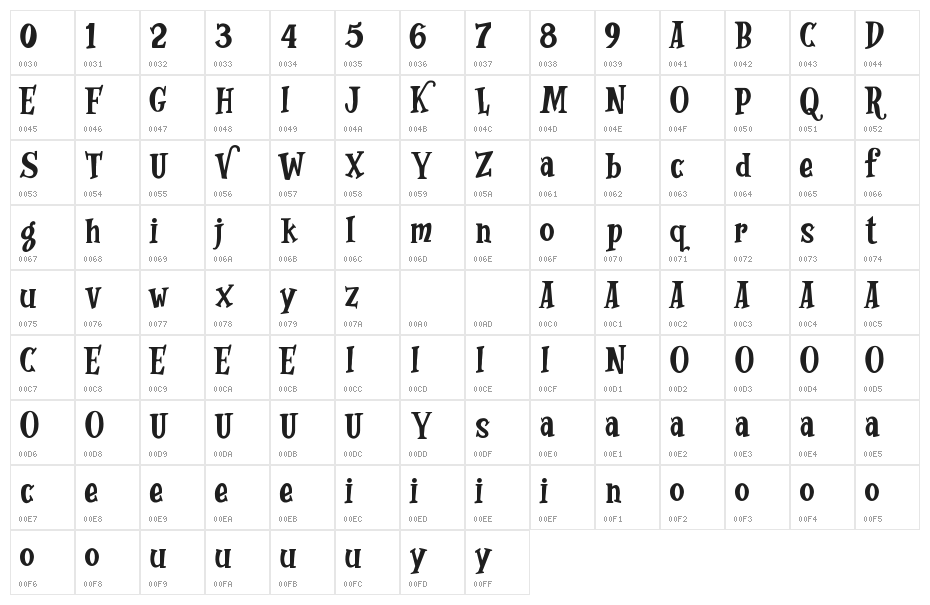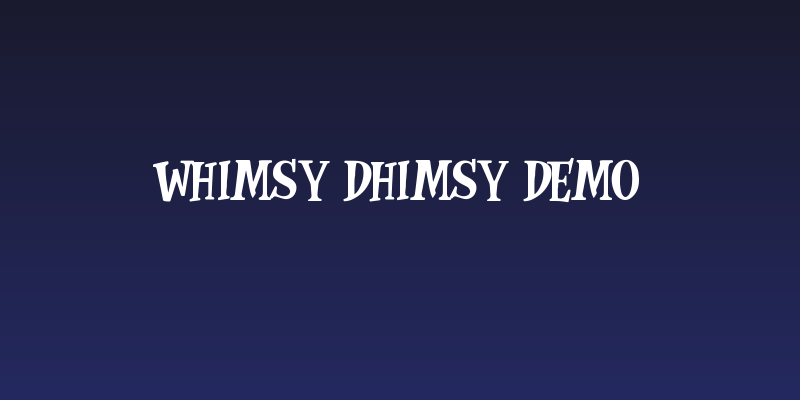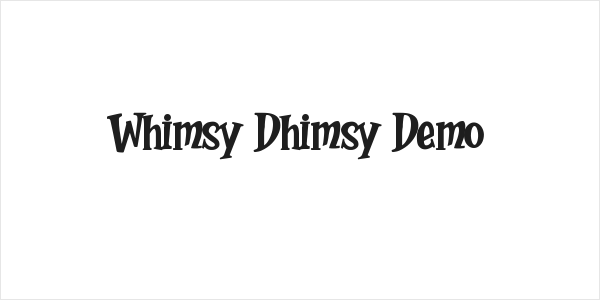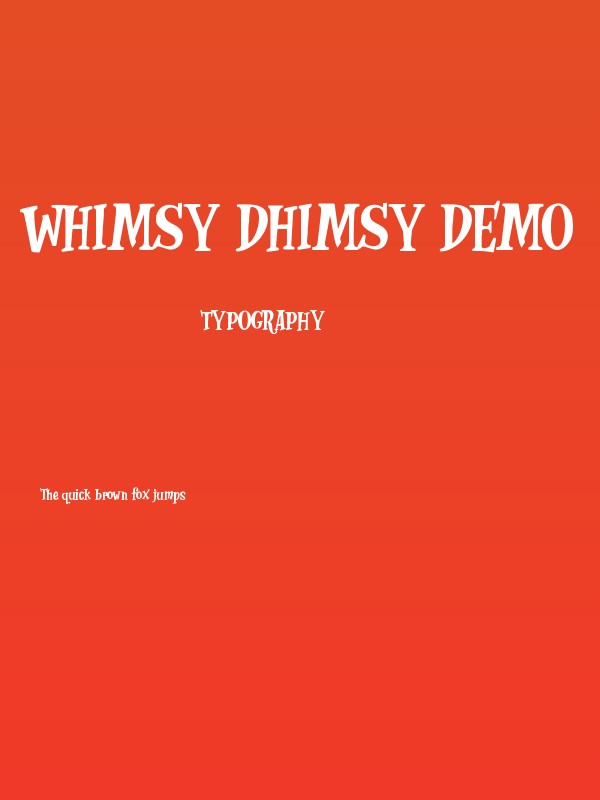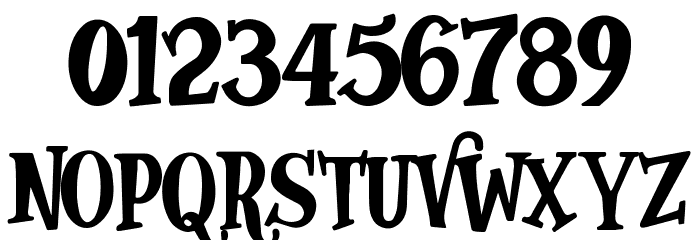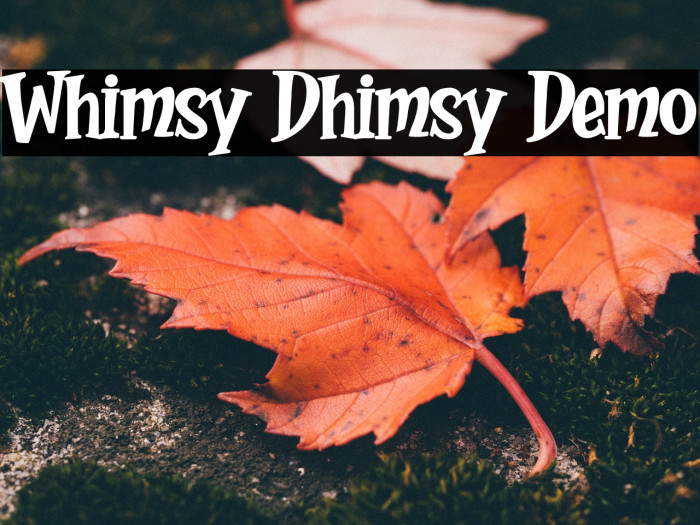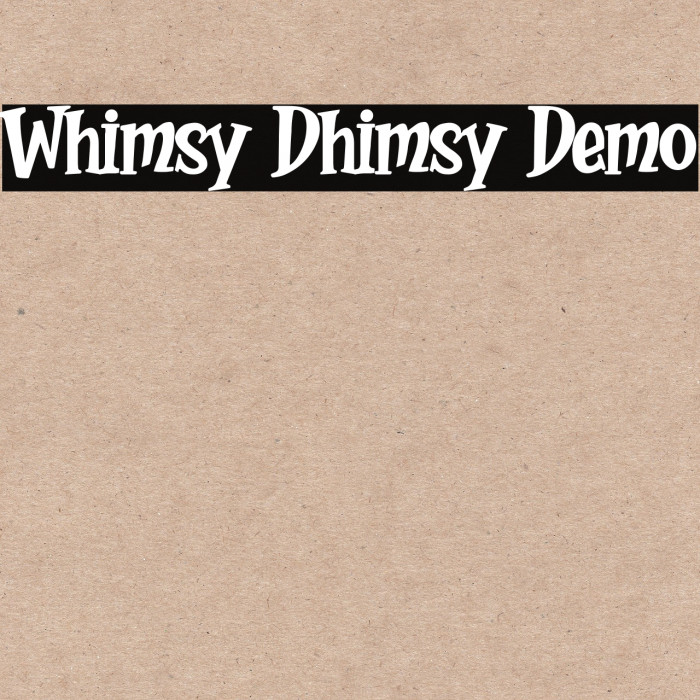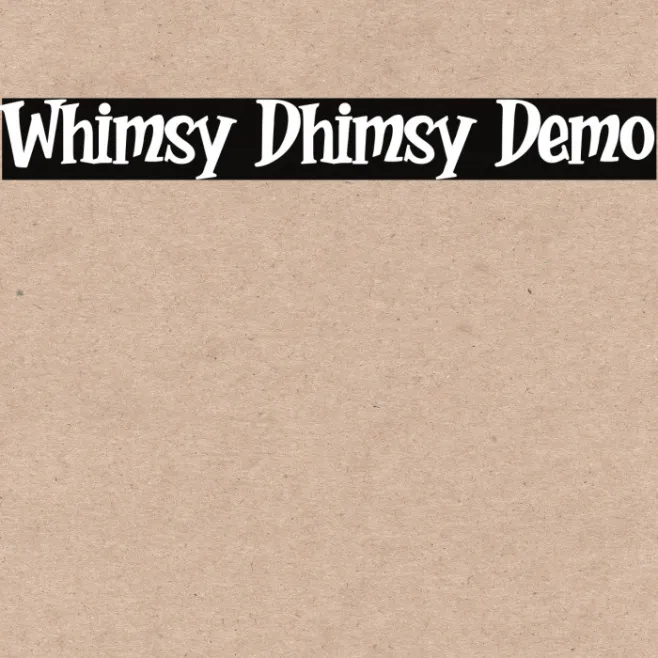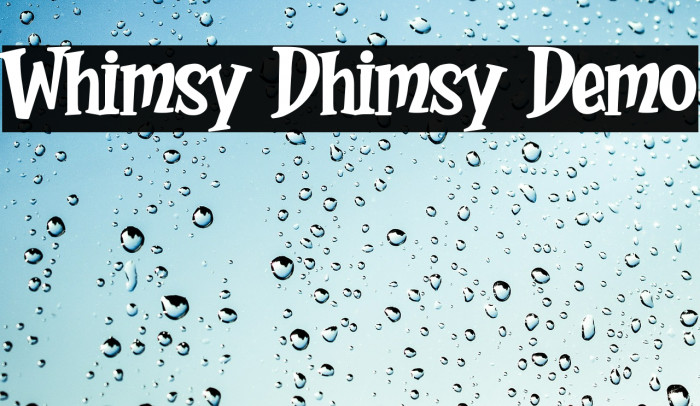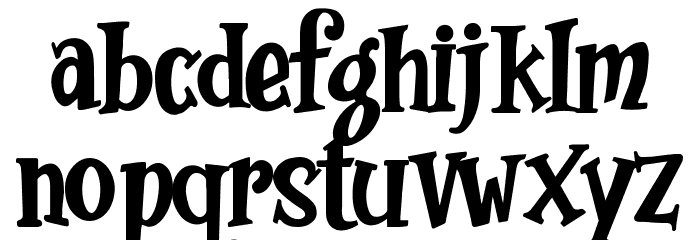
Whimsy Dhimsy Demo Font
Whimsy Dhimsy Demo Description
This font exudes a playful and whimsical charm, characterized by its bold and curvy letterforms. The exaggerated serifs and varying stroke widths give it a lively, almost cartoonish appearance. The uppercase letters are particularly distinctive, with a sense of movement and flair, while the lowercase letters maintain a consistent style that complements the uppercase. The numbers are bold and easily readable, adding to the font's versatility. Special characters are creatively designed, maintaining the overall whimsical theme. This font is perfect for projects that require a fun and engaging visual element.
| Overall Style | Whimsical |
| Proposed Projects | Ideal for children's books, playful branding, party invitations, and creative posters. |